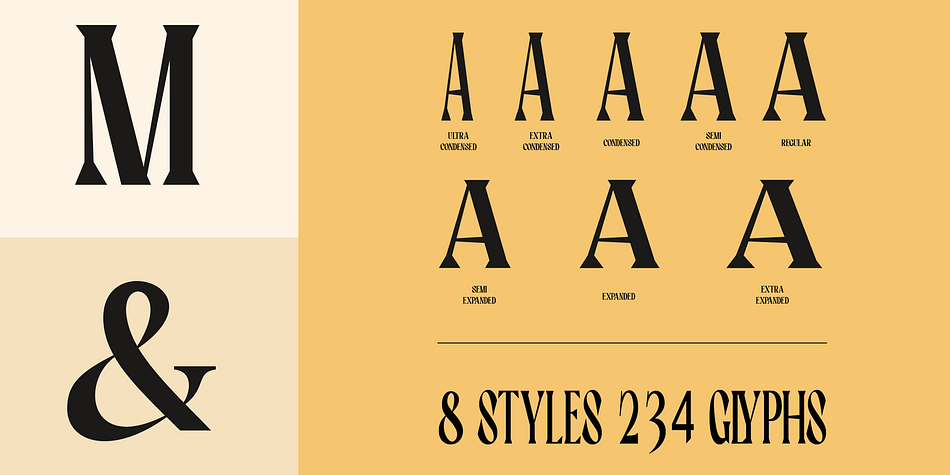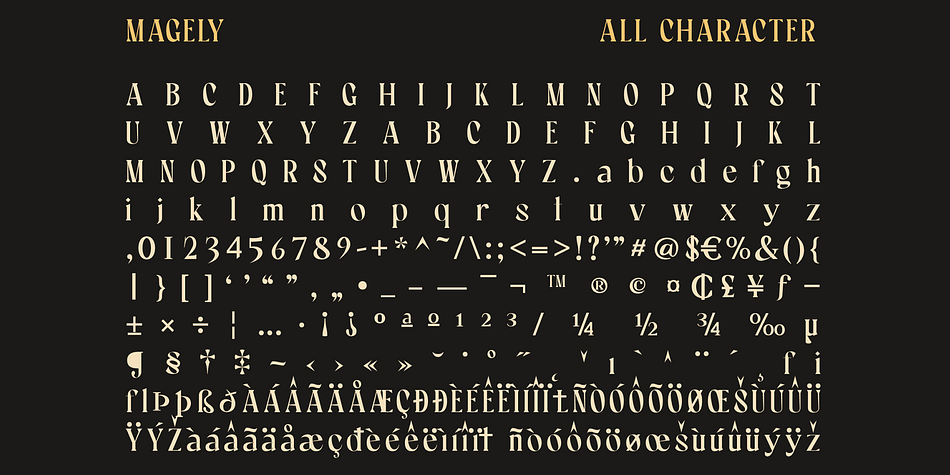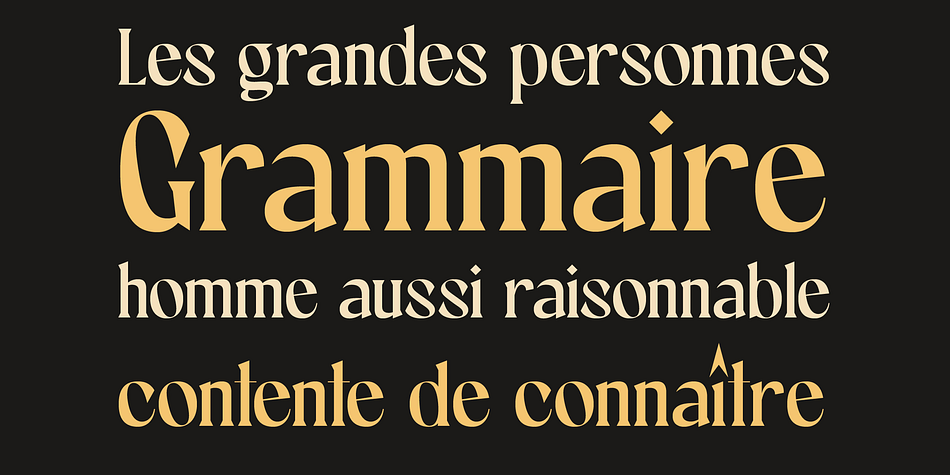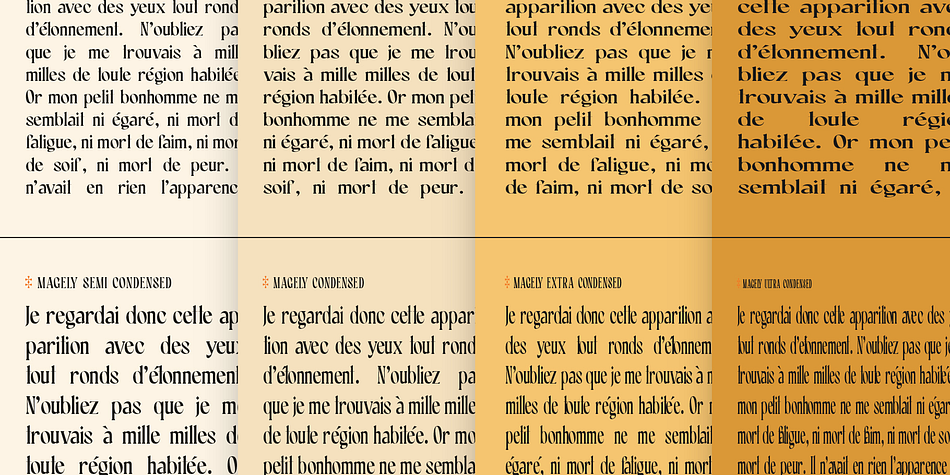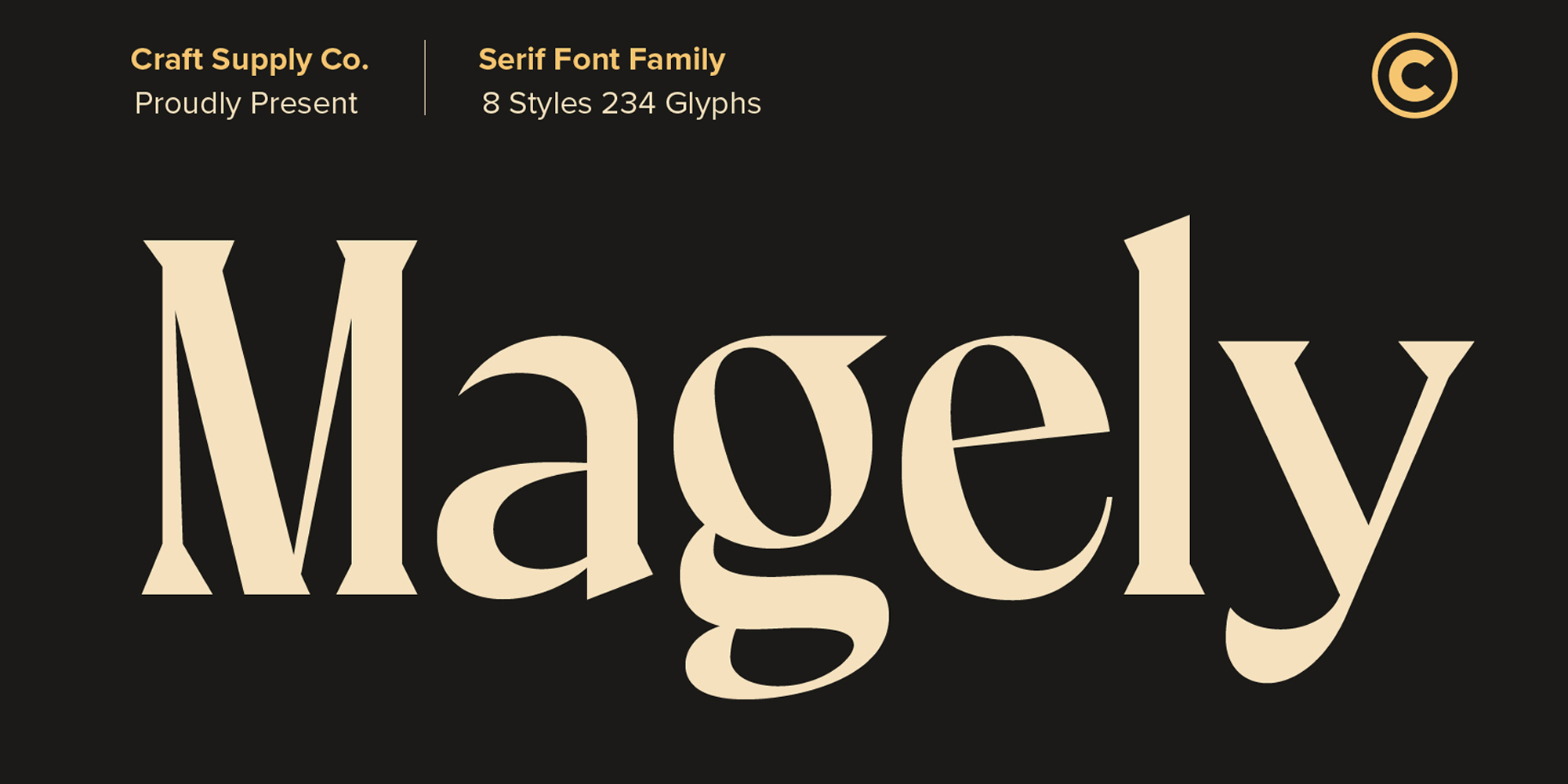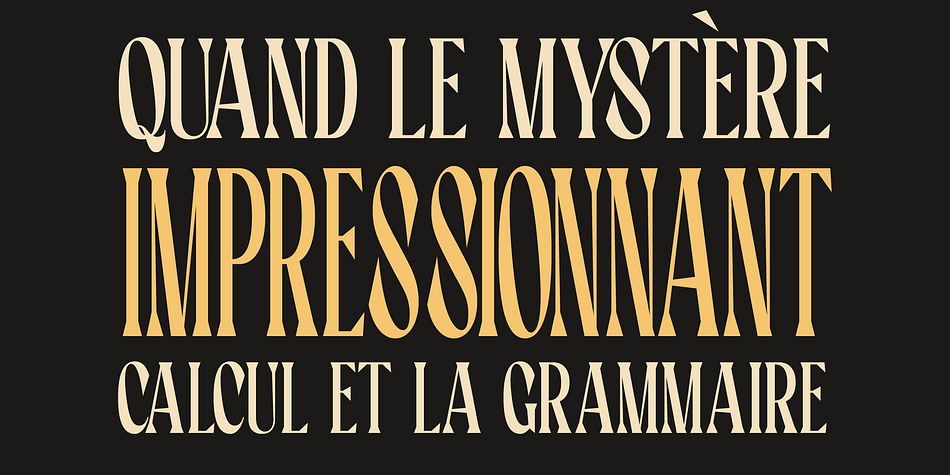
Magely
Magely is a display serif font family. This typeface has eight styles and was published by Craft Supply Co.
Magely is stylish serif font family, contain 8 style fonts. Magely is made for any type of display text, such as product packaging, t-shirt designs, book covers, posters and wedding invitations.